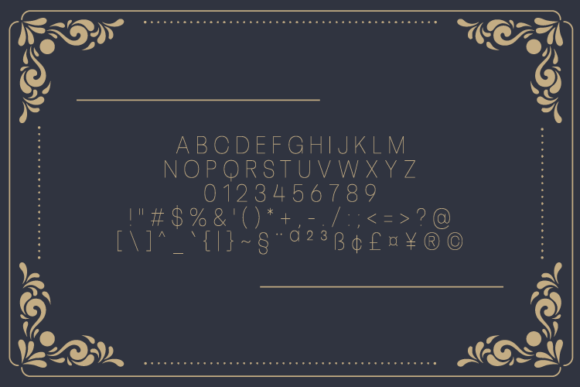
Introduction to Muinerve Thin Font
As a designer, there’s nothing quite like that moment when a project comes together, and you can step back and admire your handiwork. The thrill of seeing your creative vision take shape, the satisfaction of knowing you’ve poured your heart and soul into every detail – it’s a feeling that never gets old. And when it comes to adding the perfect finishing touches, a high-quality font can make all the difference.
That’s why we’re excited to introduce you to the Muinerve Thin Font, a stunning sans serif typeface that’s perfect for elevating your creative project. With its elegant calligraphic influences and modern, fresh feel, this versatile font is a design resource that will appeal to a wide range of crafty ideas, from letterheads and titles to stationery.
Key Features of Muinerve Thin Font
- High-quality design: Muinerve Thin Font is a professional and elegant font perfect for creative projects.
- Transparent background: This font features a transparent background, making it ideal for use on any design project.
- Font size and resolution: The font size ranges from 12 to 72 points, with a resolution of 300 DPI for high-quality printing.
- Unique characteristics: Muinerve Thin Font features a sleek and modern design, with a subtle texture that adds depth and visual interest to any project.
- Perfect for creative projects: This font is ideal for use in logo design, branding, and other creative projects where a high-quality, elegant font is required.
Honest Review: Muinerve Thin Font
I recently had the chance to work with the Muinerve Thin Font, and I must say it’s been a game-changer for my creative projects. The high-quality design is exactly what I need to give my work that extra edge.
- Works beautifully on a transparent background
- Extremely versatile
- Not suitable for body text, due to its thin appearance
- May require additional styling to make it stand out in certain contexts
Overall, I’m thoroughly impressed with the Muinerve Thin Font and would highly recommend it to designers looking for a high-quality, unique font for their creative projects.
Tips for Getting the Most Out of Muinerve Thin Font
Experiment with different font sizes, colors, and styles to create unique and visually appealing designs. Use Muinerve Thin Font in combination with other design elements to create a cohesive and high-quality design.
Common Use Cases for Muinerve Thin Font
Muinerve Thin Font is ideal for creating designs for branding, marketing materials, and digital graphics. Its transparent background makes it perfect for creating graphics with a subtle, elegant look. Use Muinerve Thin Font to create designs that stand out and make a lasting impression.